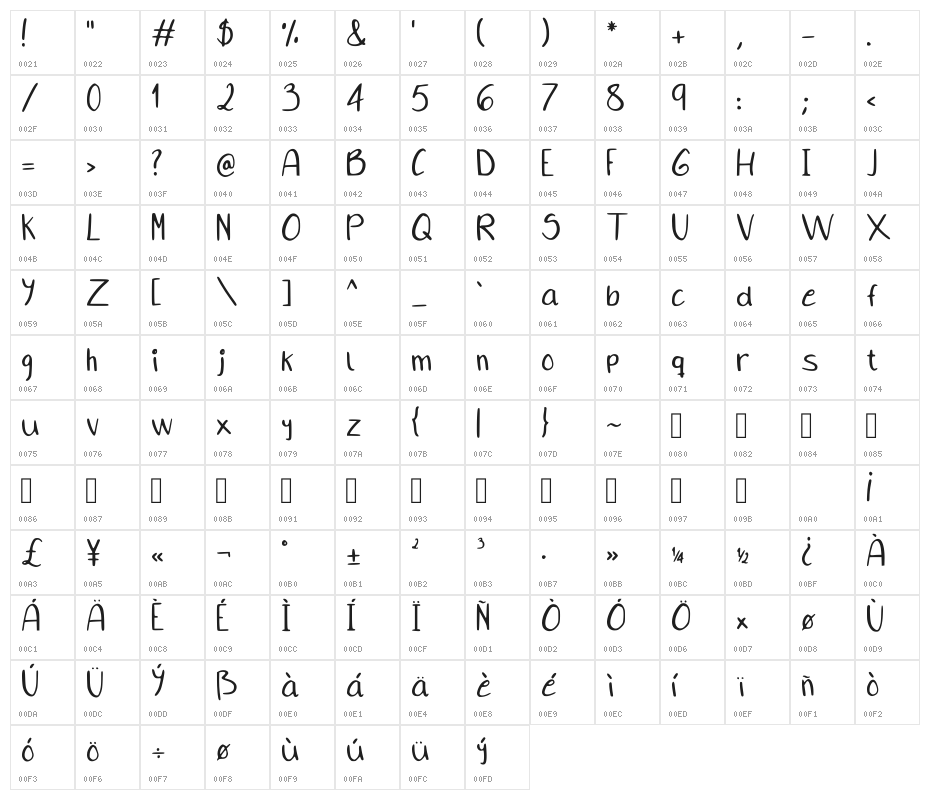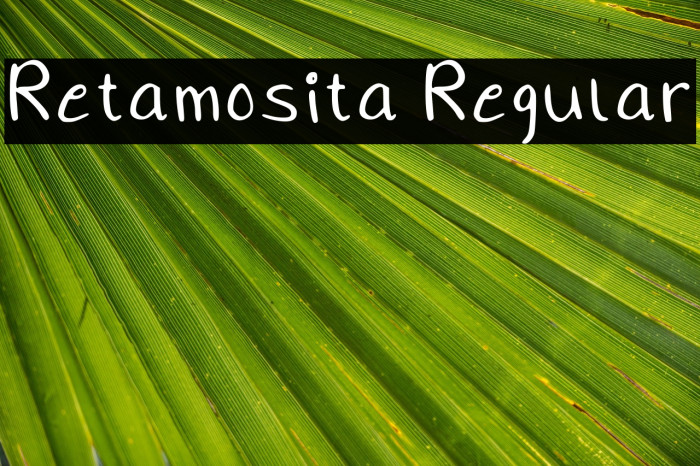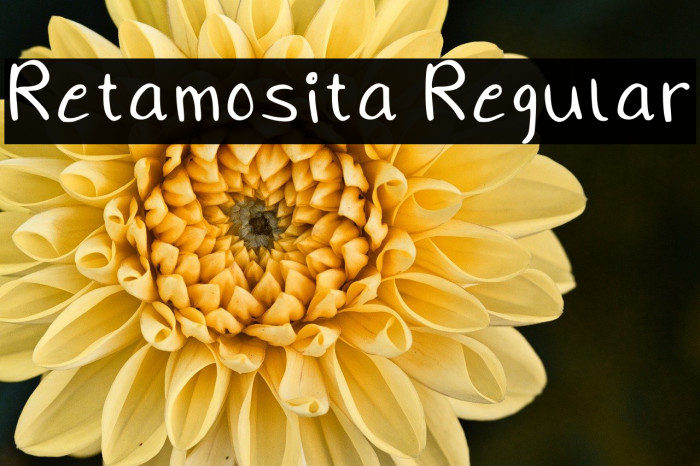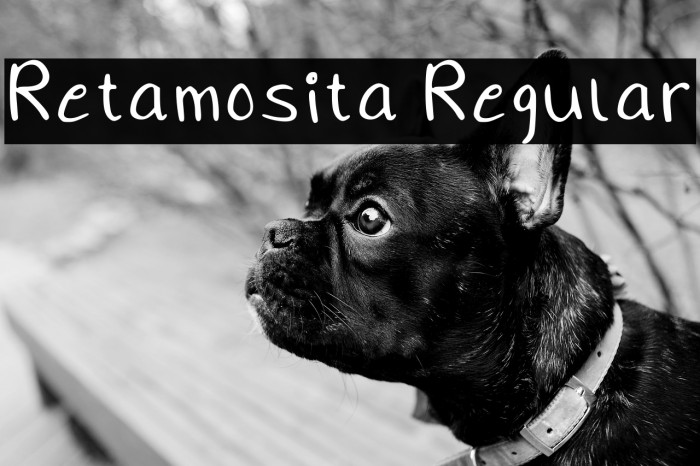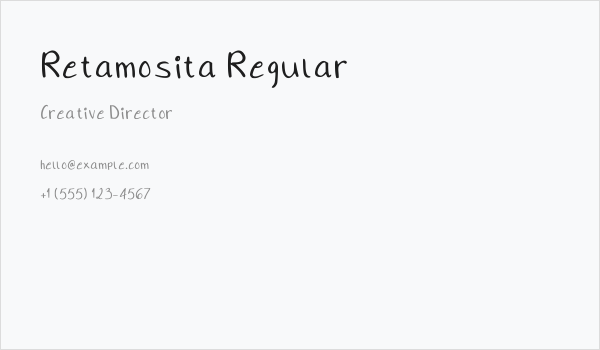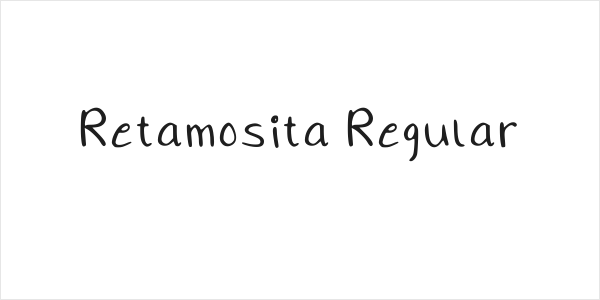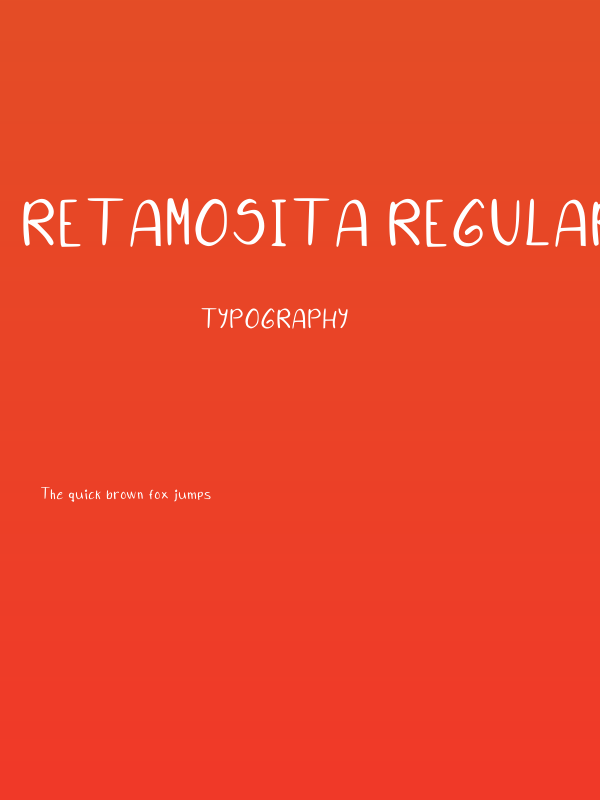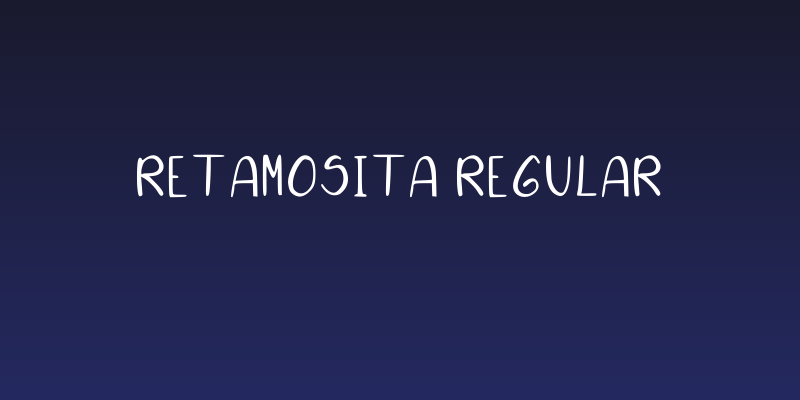
Retamosita Regular Font
Retamosita Regular Description
This playful and whimsical font features a handwritten style with a casual, friendly appearance. The characters are slightly irregular, adding a personal touch that mimics natural handwriting. The strokes are smooth and rounded, giving it a soft and approachable feel. The font maintains a consistent weight throughout, ensuring readability while retaining its unique charm. It includes a full set of uppercase and lowercase letters, numbers, and a variety of special characters, making it versatile for different uses.
| Proposed Projects | Ideal for greeting cards, children's books, personal blogs, and informal branding projects. |